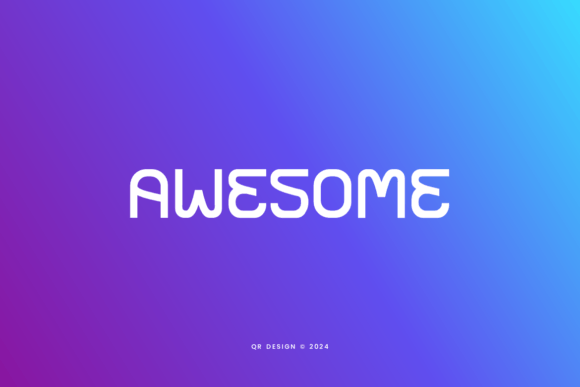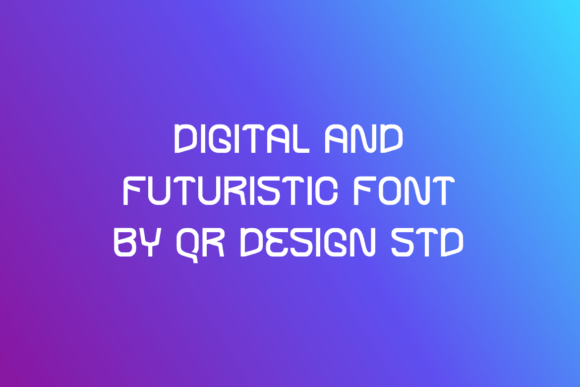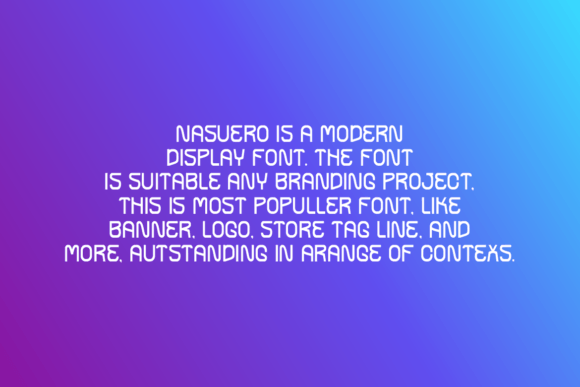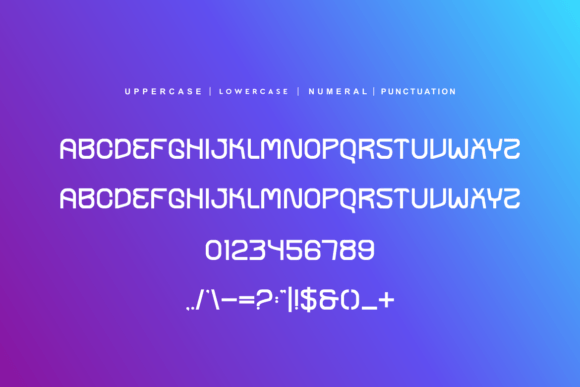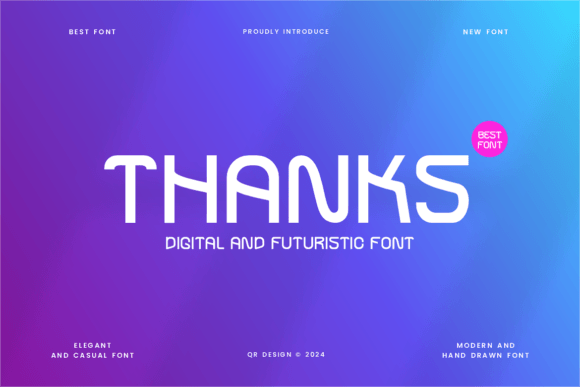
Introduction to Nasuero Font
Have you ever stared at a blank canvas, unsure of where to start your next creative project? The spark of inspiration can be elusive, but sometimes all it takes is the right design resource to set your imagination ablaze. For those who crave a futuristic look that’s out of this world, the Nasuero Font is the perfect catalyst.
This sleek and modern font is a game-changer for designers, offering a unique blend of sharp lines and bold shapes that’s sure to elevate any high-tech or sci-fi design. With its cutting-edge style, the Nasuero Font is the perfect choice for those who want to make a statement and push the boundaries of creative expression.
Nasuero Font
Honest Review: Nasuero Font
What works well with the Nasuero Font is its high quality and versatility. It’s perfect for adding a touch of elegance to any design project. The font also features a transparent background, making it easy to use in various design scenarios.
- ✨ Unique and elegant design
- ✨ High quality and versatile
- ✨ Transparent background for easy use
One limitation of the Nasuero Font is that it may not be suitable for all design projects. The font’s unique style may not appeal to everyone, and it’s best used in specific contexts where its elegance can shine.
Overall, I’m impressed with the Nasuero Font. It’s a great addition to any designer’s toolkit, and I’d definitely recommend it for creative projects that require a touch of sophistication. Just be mindful of its limitations and use it in contexts where its unique style will shine.
Nasuero Font
The Nasuero Font is a free, high-quality design resource perfect for creative projects that require a unique and stylish touch. With its transparent background, this font is versatile and easy to use in various design applications.
Tips for Getting the Most Out of Nasuero Font
To get the most out of the Nasuero Font, experiment with different font sizes, colors, and styles to create unique and eye-catching designs. You can also pair it with other design elements, such as images and graphics, to create a cohesive look.
The Nasuero Font is perfect for creative projects that require a stylish and unique touch, such as:
- Presentation designs
- Branding and identity projects
Alternatives to Nasuero Font
Monserrat is a high-quality sans-serif font perfect for creative projects requiring a modern and sleek design. It is available for free download and is suitable for use on transparent backgrounds. When to use: For projects that need a clean and minimalist look, Montserrat is an excellent alternative to Nasuero Font.
Montserrat compares well to Nasuero Font in terms of its modern design aesthetic, but it lacks the unique, handwritten feel of Nasuero. However, its versatility makes it a great choice for a wide range of creative projects.
Great Vibes is a beautiful, handwritten font ideal for design projects that require a touch of elegance and sophistication. It is available for free download and is suitable for use on transparent backgrounds. When to use: For projects that need a unique, handwritten feel, Great Vibes is an excellent alternative to Nasuero Font.
Great Vibes compares well to Nasuero Font in terms of its unique, handwritten feel, but it lacks the modern, sleek design aesthetic of Nasuero. However, its elegance and sophistication make it a great choice for creative projects requiring a touch of class.
Alex Brush is a high-quality, handwritten font perfect for design projects that require a touch of warmth and personality. It is available for free download and is suitable for use on transparent backgrounds. When to use: For projects that need a unique, handwritten feel with a touch of warmth, Alex Brush is an excellent alternative to Nasuero Font.